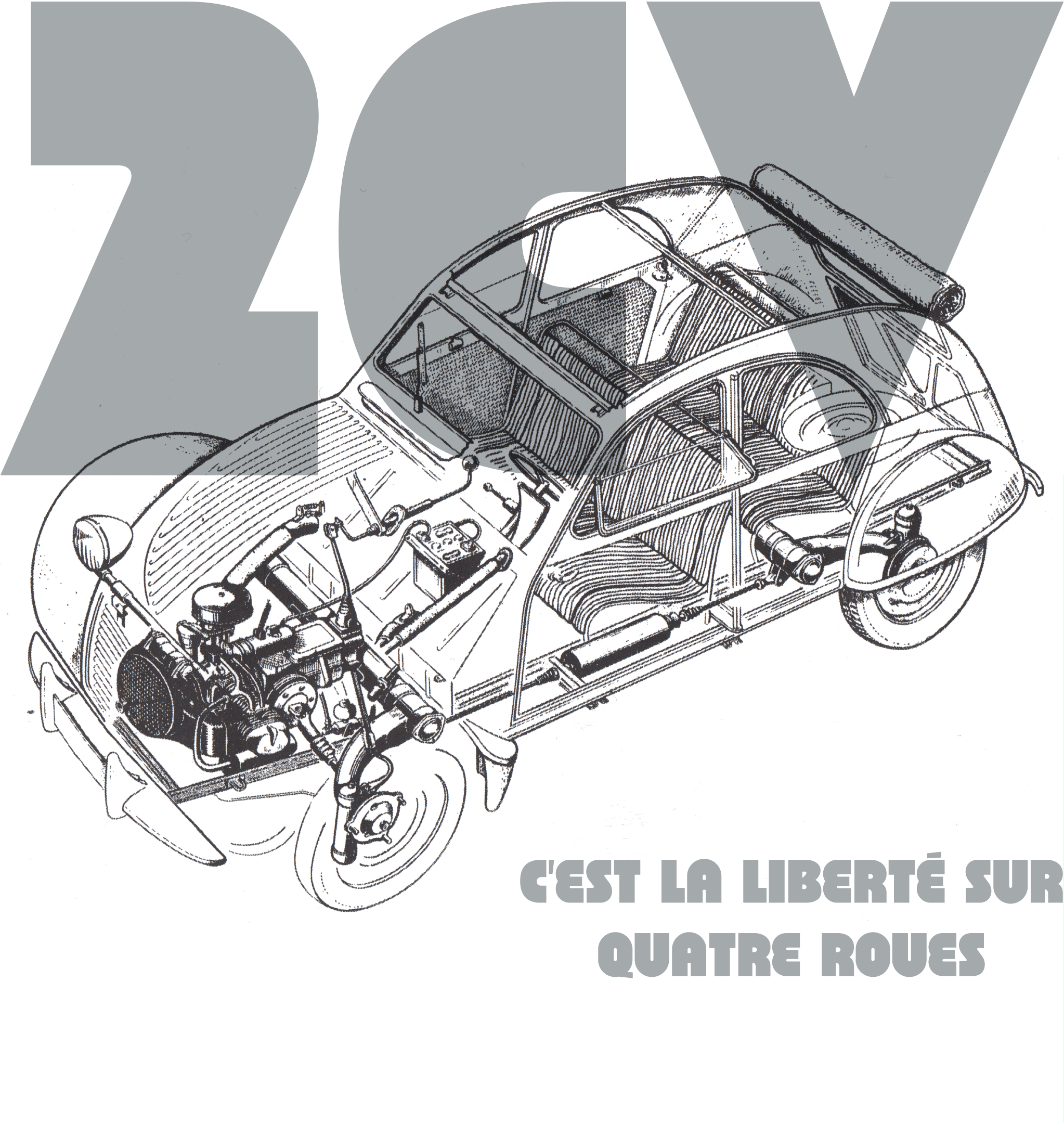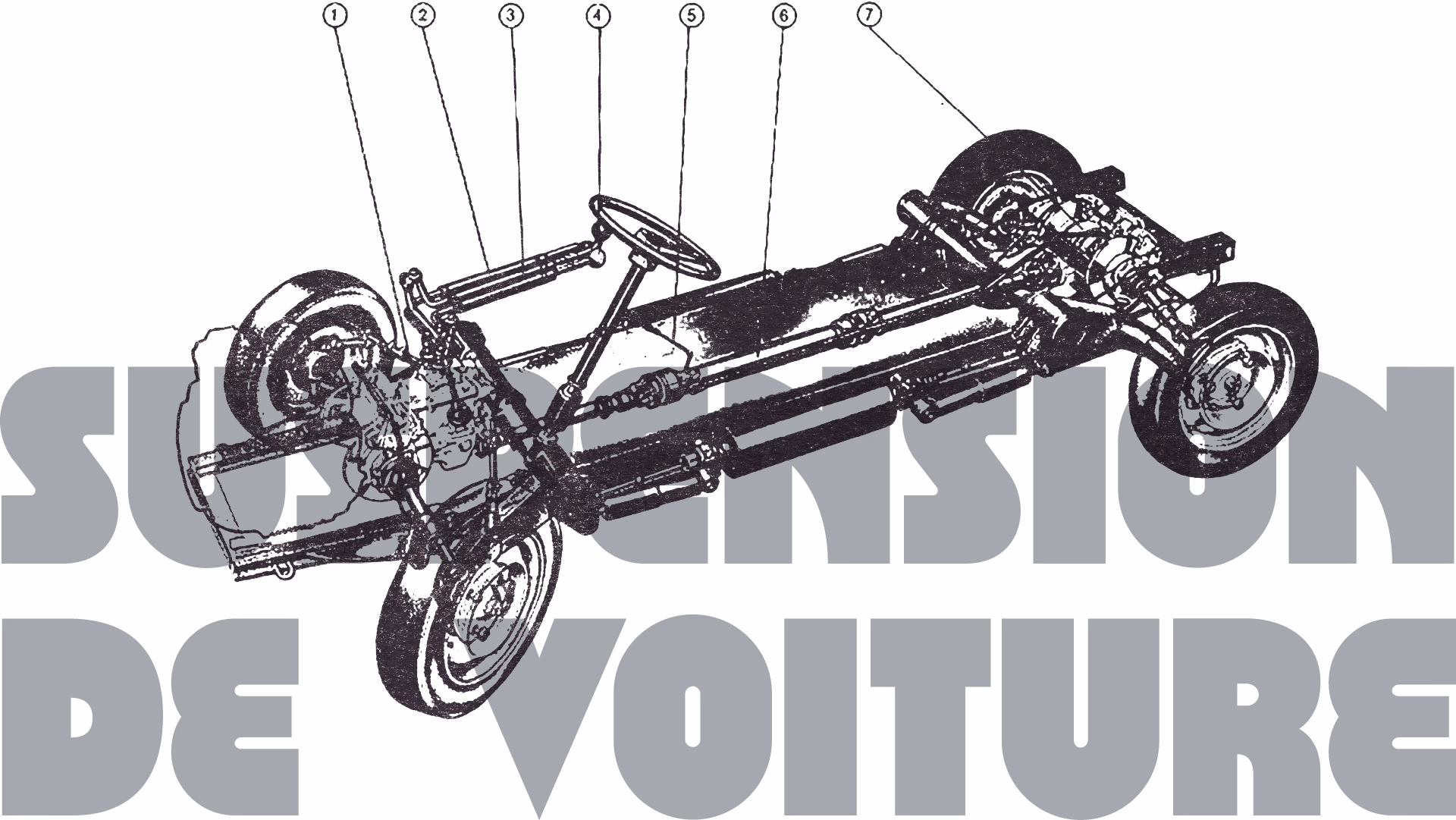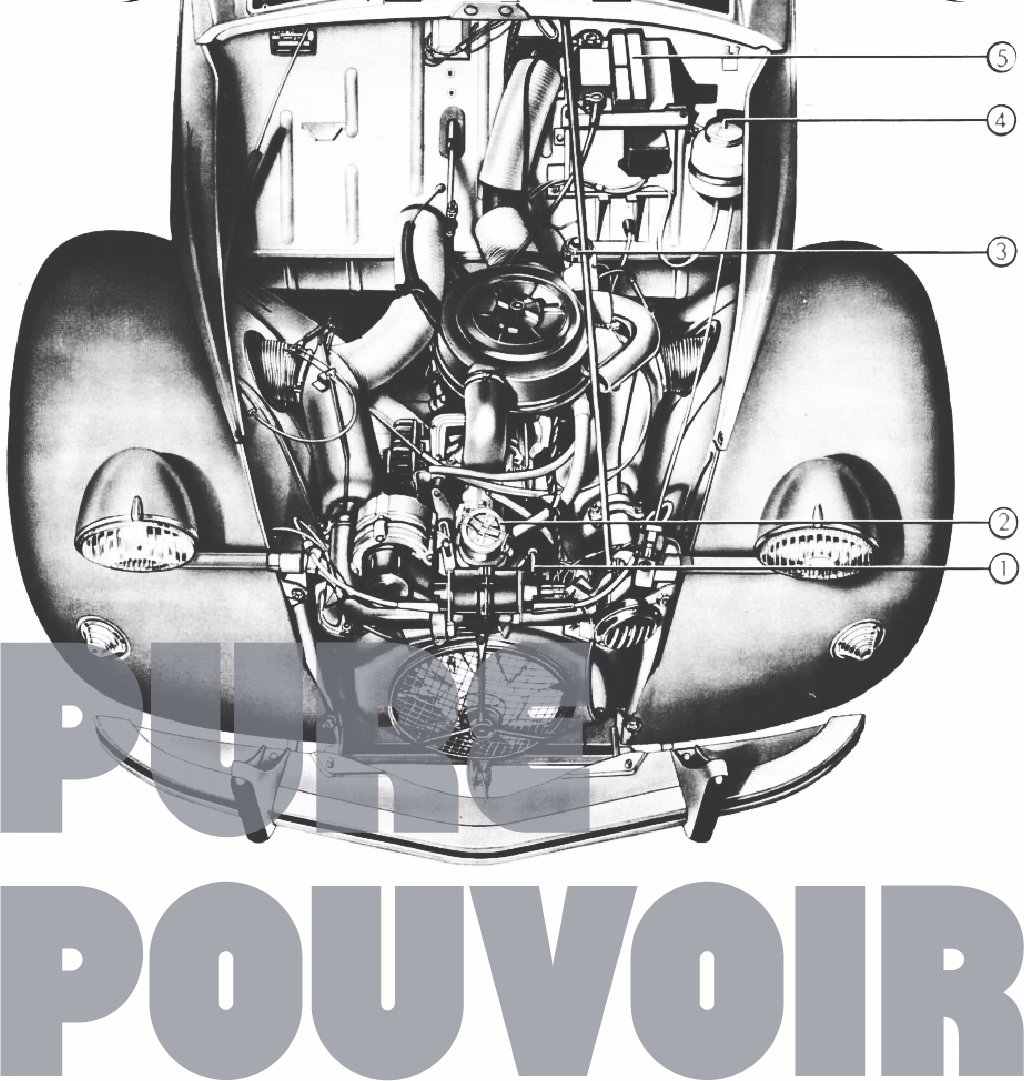
2CV: simplicity with soul
Few cars have captured the spirit of simplicity and smart engineering quite like the Citroën 2CV. Designed to help farmers swap horse and cart for four wheels, this French icon became loved for its honesty, charm and ingenious suspension. The 2CV typeface pays tribute to that legacy – a custom font that channels the car’s distinctive form, era and character into typography with timeless appeal.
A tribute in type
Inspired by the car’s industrial grey bodywork, its vanilla-white rims, its 1950s era and the honest, functional spirit of its design, the 2CV typeface blends strength with clarity. It echoes the bold lettering often seen on posters and headlines when the car first launched – typography that, like the 2CV itself, was made to stand out and get the job done.
Described as an “umbrella on four wheels,” the 2CV was designed for pure function – with lightweight construction and ingenious suspension, allowing the car to carry a basket of eggs across a ploughed field without breaking a single one. More than 3.8 million of these cars were made, proving that smart, honest engineering never goes out of style.
Utilitarian charm
The Citroën 2CV was created to be the ultimate no-nonsense car: light, robust and as practical as it gets. The idea came from Citroën’s Vice-President Pierre Boulanger, who wanted a simple, affordable vehicle that could replace the horse and cart still used by many farmers. The brief? Build a car that could carry 50 kg of goods to market at 50 km/h, use minimal fuel and handle muddy country roads with ease.
Lights, camera, 2CV
With just 12.5 horsepower, the 2CV wasn’t built for speed – but that didn’t stop it from becoming a star. This humble car has appeared in countless films, proving that charm and clever engineering go a long way. From Bond’s daring escape in For Your Eyes Only to the nostalgic streets of Paris in Amélie, the 2CV steals the scene every time.
Built-in picnic mode
The 2CV’s seats were as clever as the car itself – simple metal frames with canvas stretched across, just like picnic chairs. Easy to remove, light to carry, and perfect for a roadside break. A seat in the car, or a seat by the car – your choice!
Glyphs